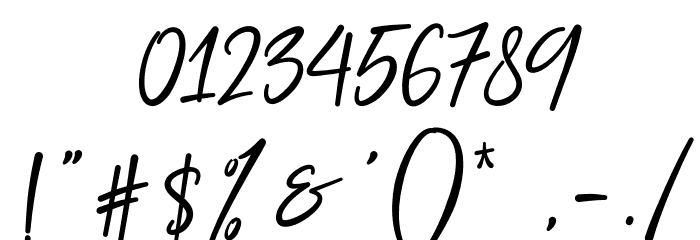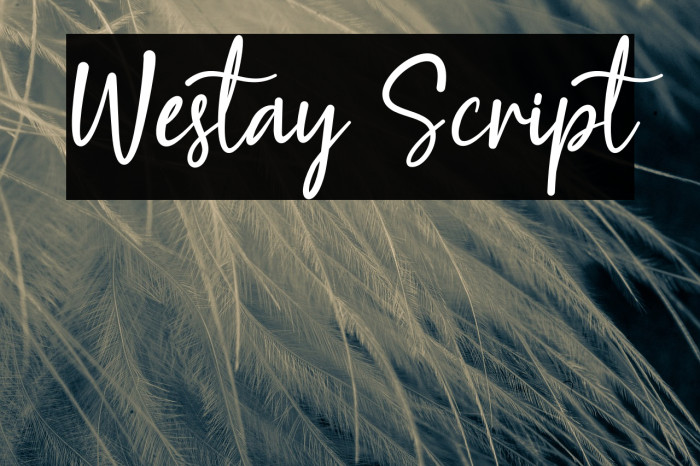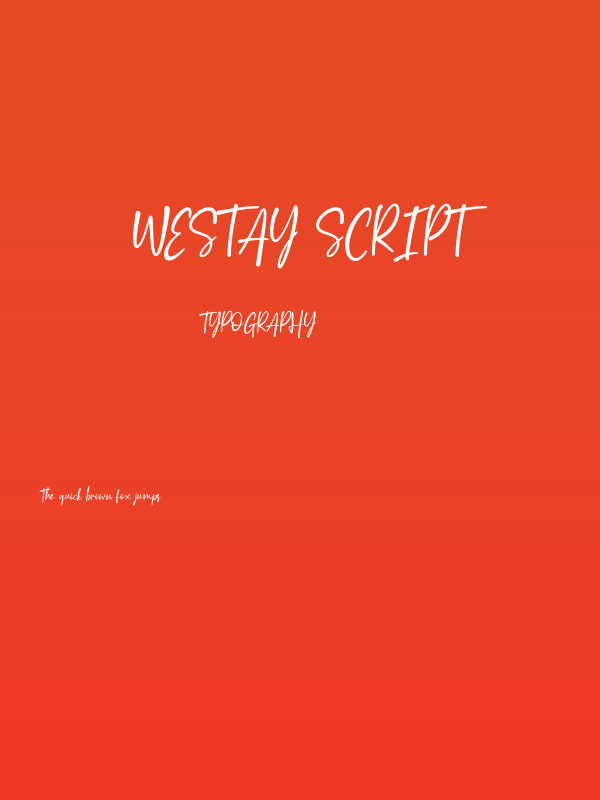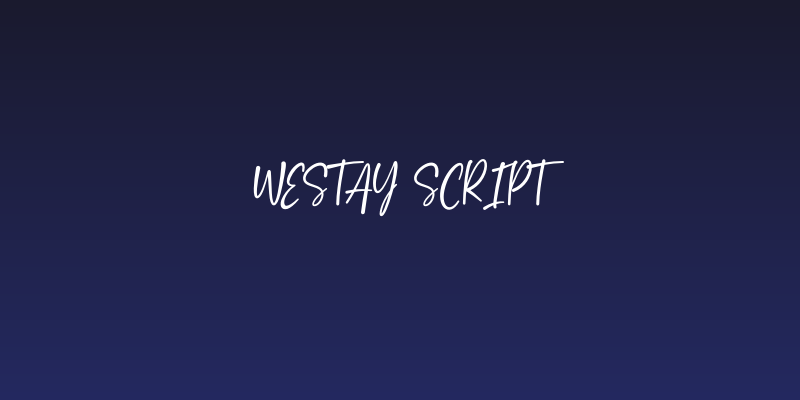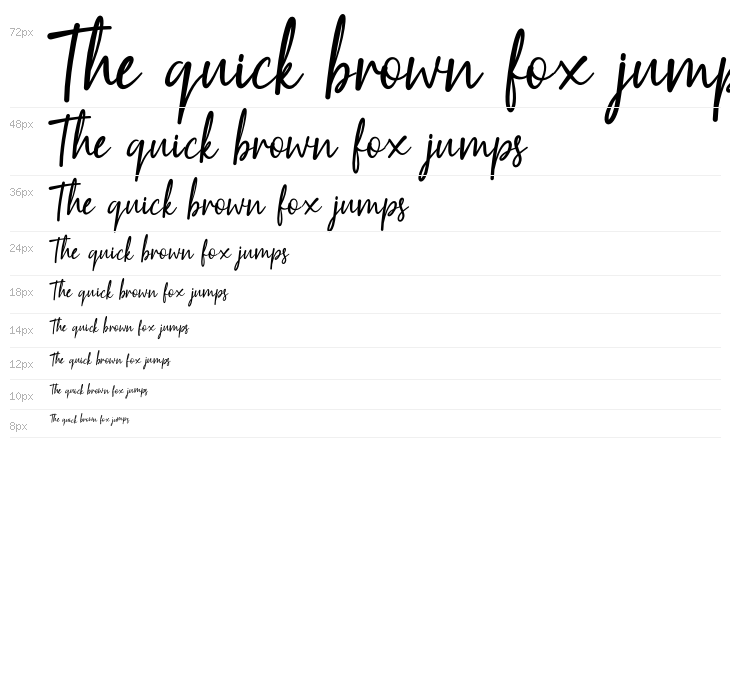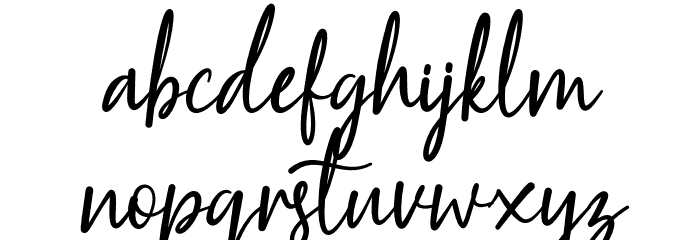
Westay Script Font
Westay Script Description
This script font exudes a lively and dynamic character, with its flowing, cursive style that mimics natural handwriting. The letters are connected with smooth, sweeping strokes, giving it an elegant yet casual appearance. The uppercase letters are bold and prominent, while the lowercase letters maintain a consistent flow, enhancing readability. The numerals and special characters are crafted with the same fluidity, ensuring a cohesive look across all elements. This font is perfect for projects that require a personal touch, such as invitations, greeting cards, or branding materials. Its versatility allows it to be used in both formal and informal contexts, making it a valuable addition to any designer's toolkit.